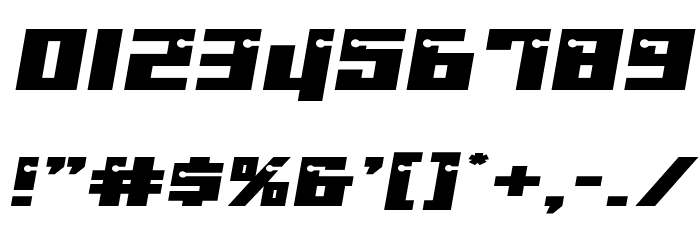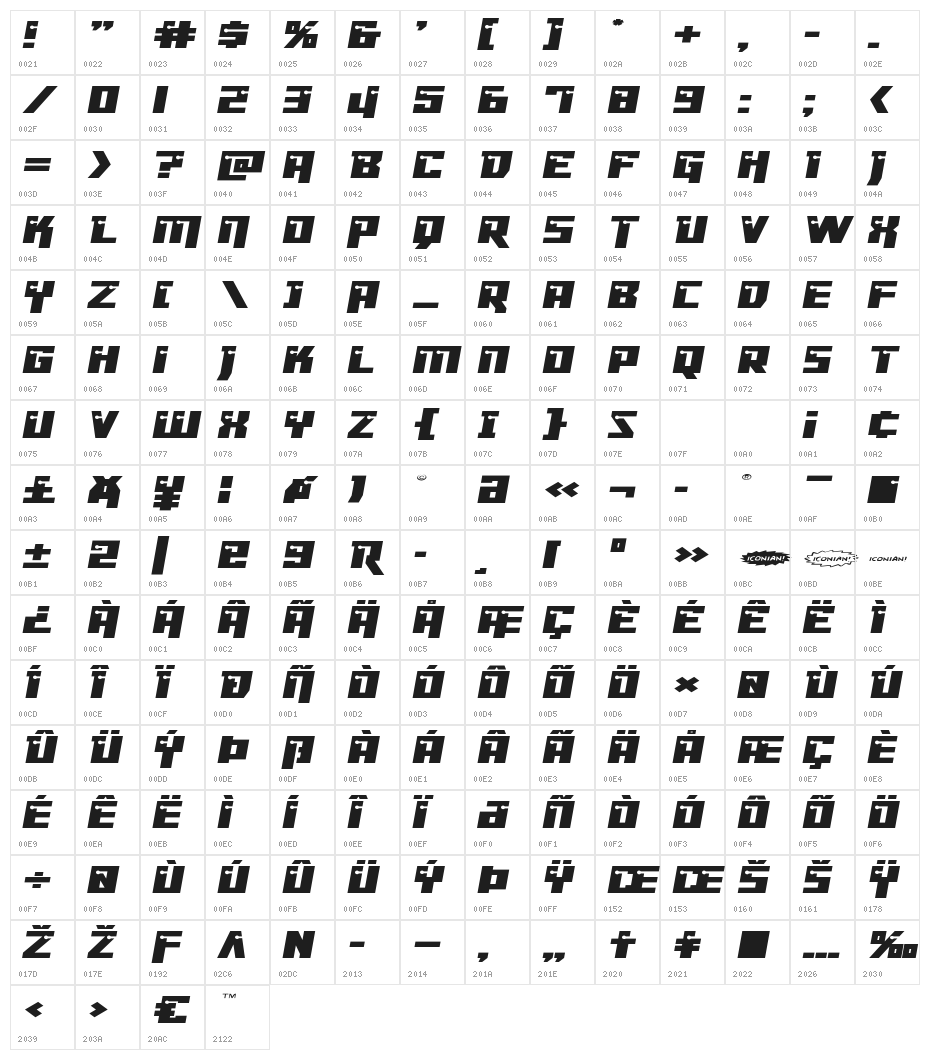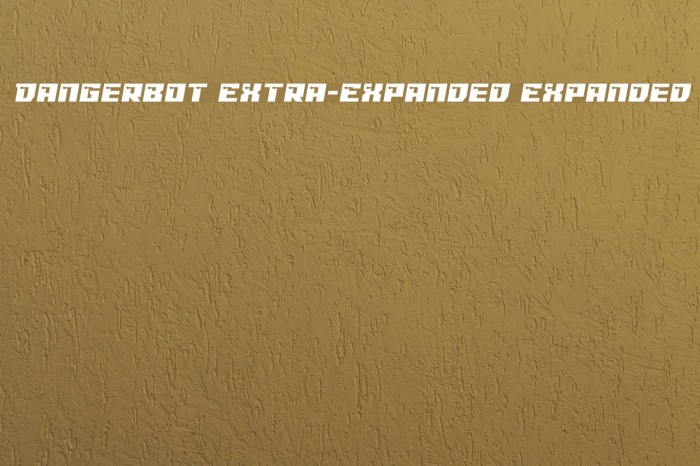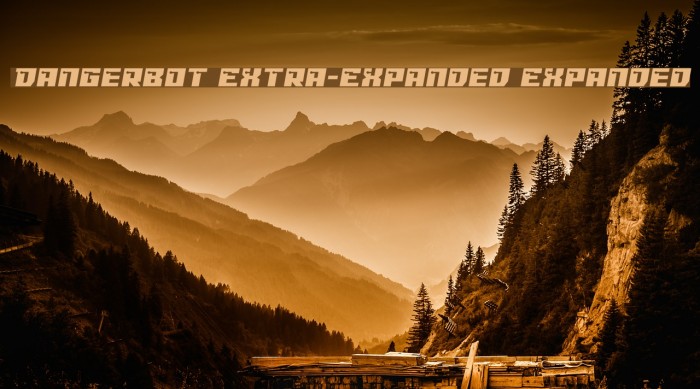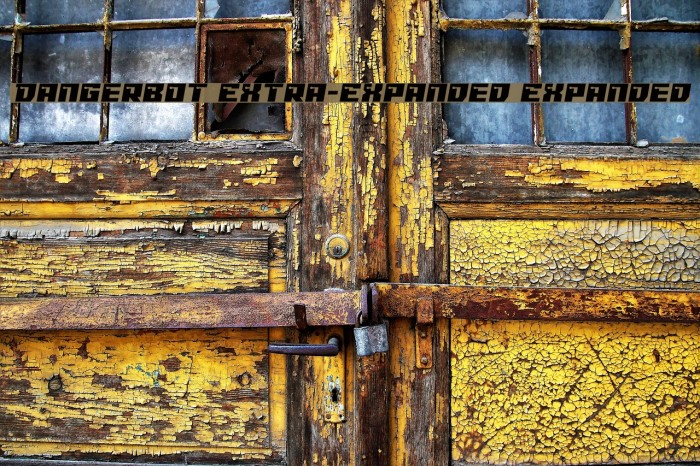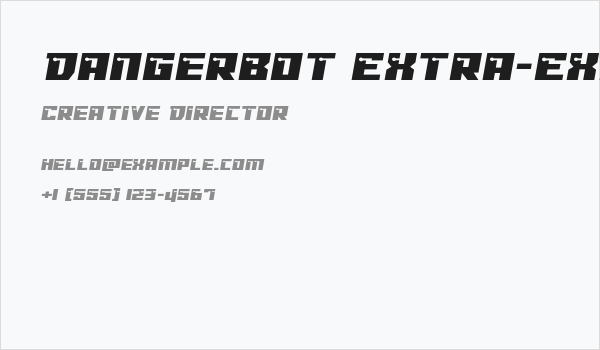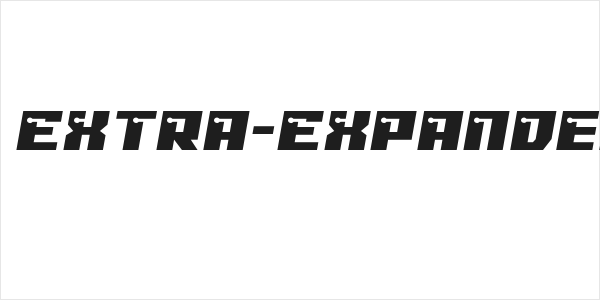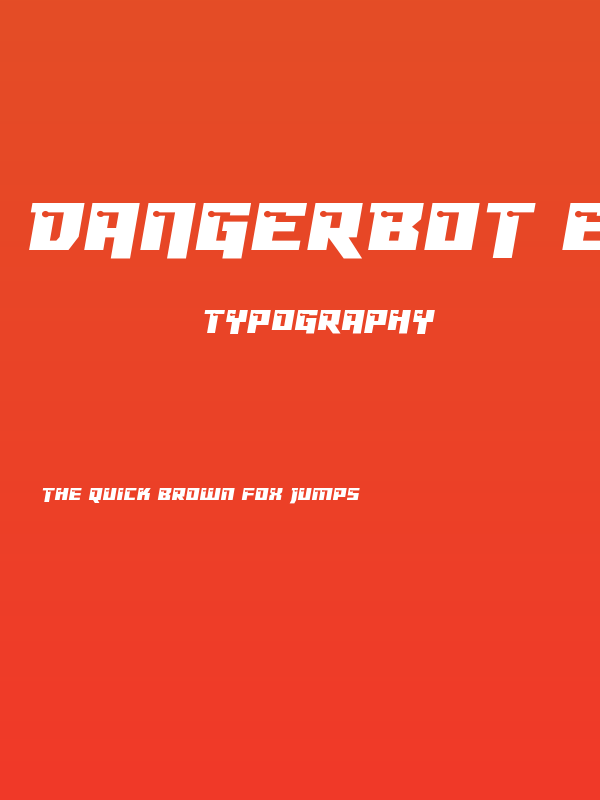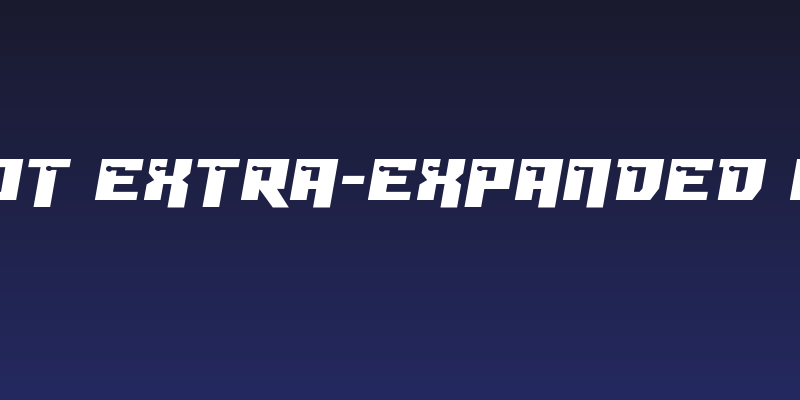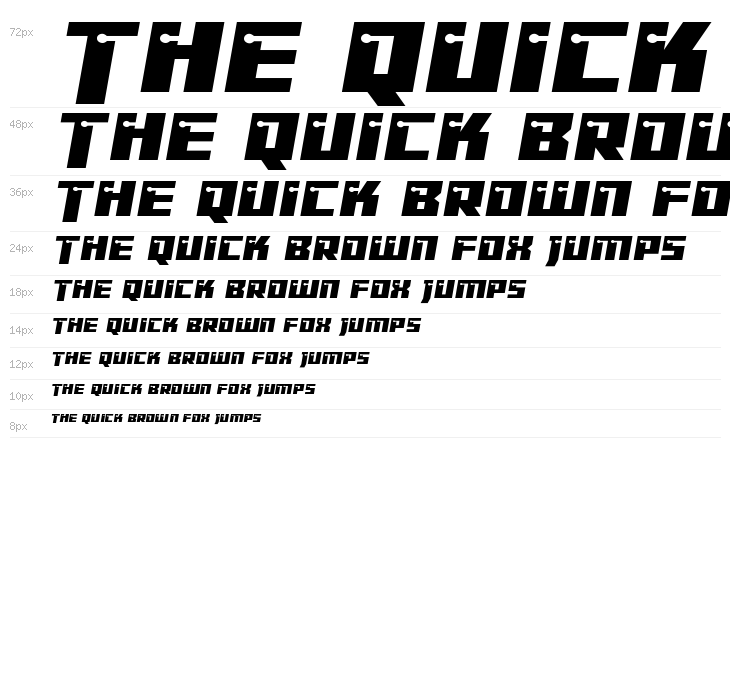
Dangerbot Extra-Expanded Font
Dangerbot Extra-Expanded Description
This font features a bold, futuristic design with angular, geometric shapes that create a sense of movement and energy. The characters are extra expanded, giving them a wide stance that commands attention. Each letter and number is crafted with sharp edges and a distinct, mechanical aesthetic, making it ideal for projects that require a modern, tech-inspired look. The font's unique style is further emphasized by its consistent stroke thickness, which adds to its bold appearance. Special characters maintain the same design principles, ensuring a cohesive look across all glyphs.